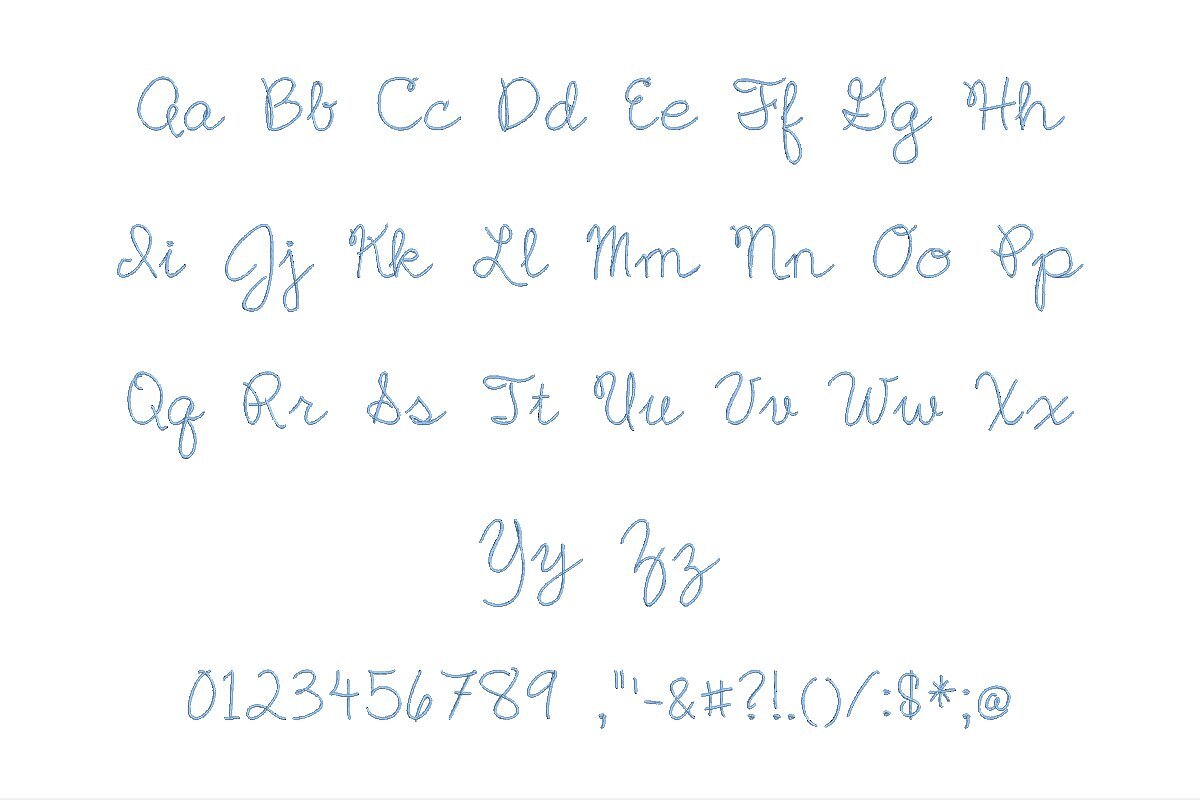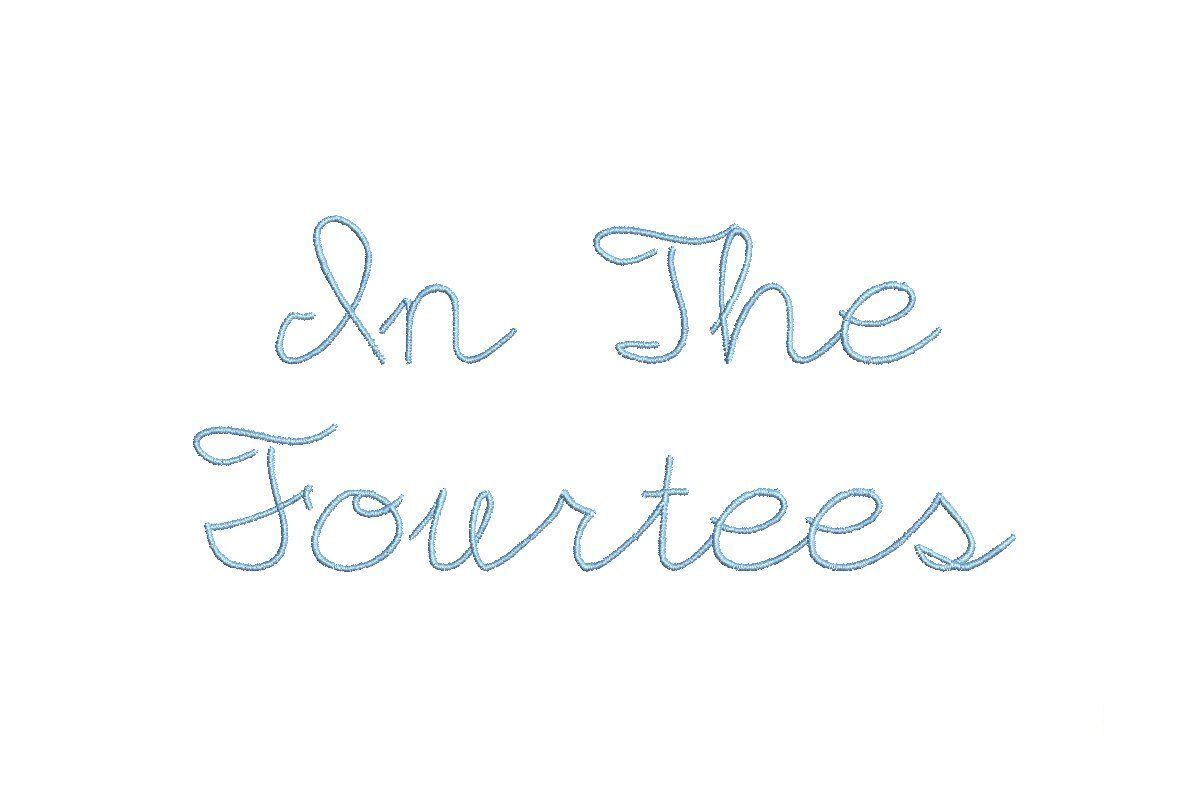
Introducing the In The Fourtees ESA font, a sleek and stylish typeface tailored for embroidery enthusiasts. This font is your gateway to timeless designs, perfect for adding a touch of elegance to your embroidery projects. What makes it even more impressive is its seamless compatibility with Wilcom Studio e4.5.6 and Hatch 3 versions and up, ensuring a smooth and efficient workflow for your digitizing needs. Craft intricate, vintage-inspired embroidery patterns with ease, thanks to In The Fourtees ESA font. Elevate your creativity and boost your embroidery game today. Experience the perfect blend of nostalgia and modernity in every stitch.